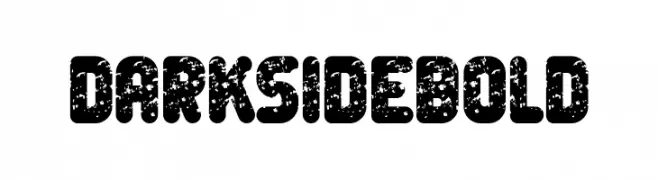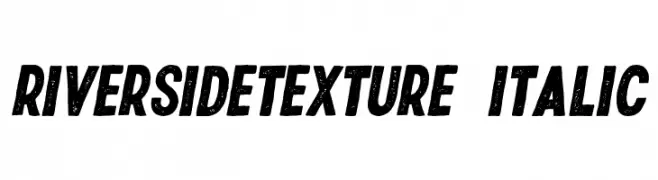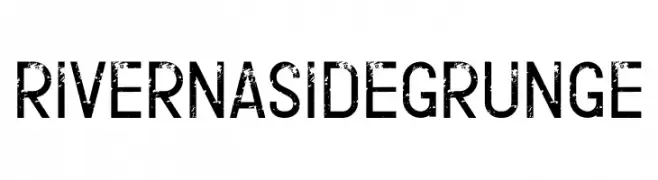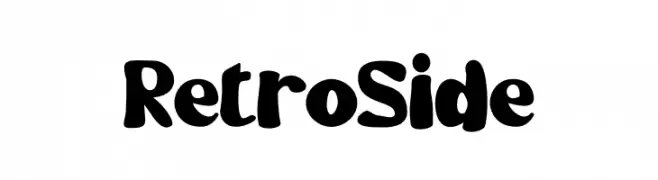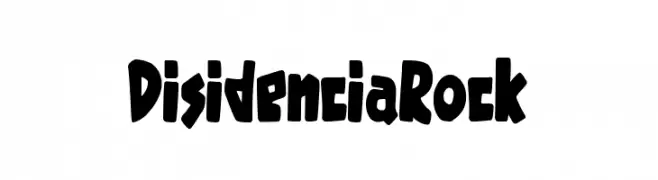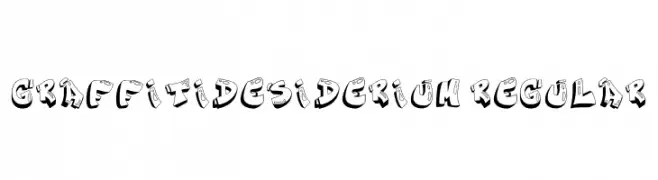
A bold, distressed font with a rugged, vintage appearance.
A bold, textured font with a vintage, distressed style.
Bold, textured, italic font with a vintage, distressed look.
A bold, distressed font with a grunge texture and high contrast.
A bold, handwritten font with smooth, flowing curves and a casual style.
A bold, retro-inspired font with rounded, playful characters.
A bold, edgy font with a graffiti-inspired, rebellious style.
A bold, geometric font with sharp, angular edges and a modern industrial feel.
A bold, graffiti-inspired font with sharp, angular lines and dynamic style.
A bold, graffiti-style font with dynamic shapes and a three-dimensional effect.